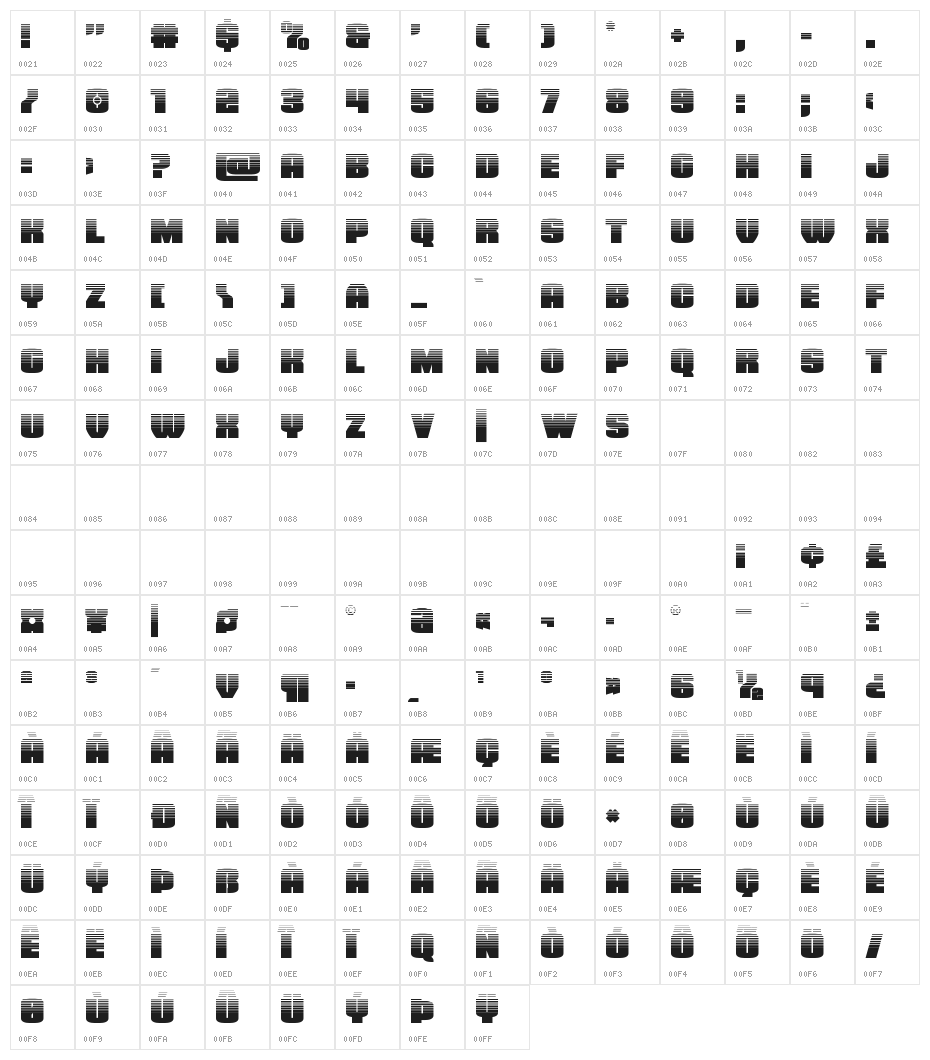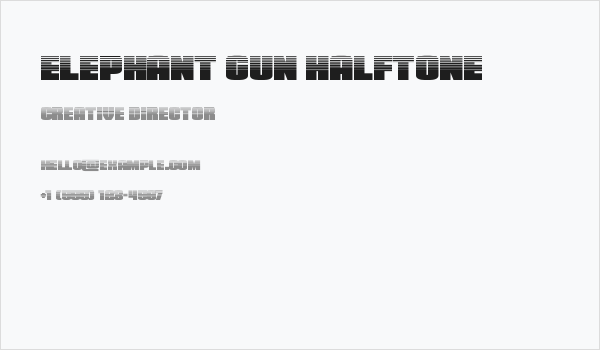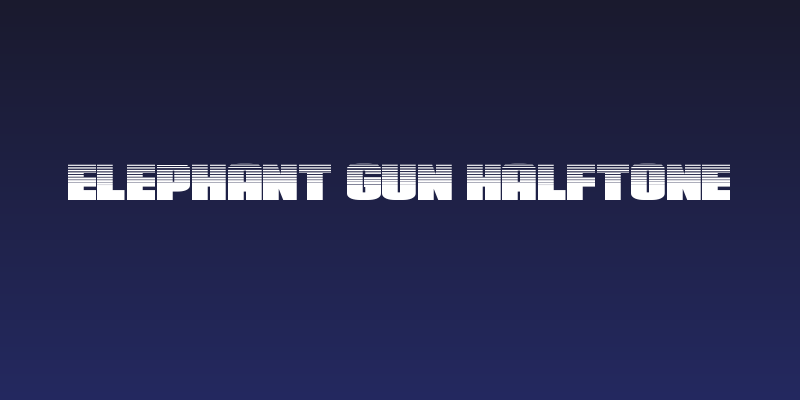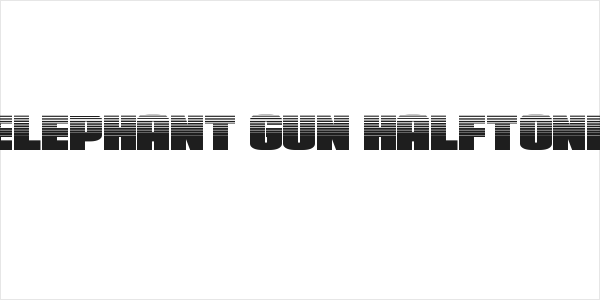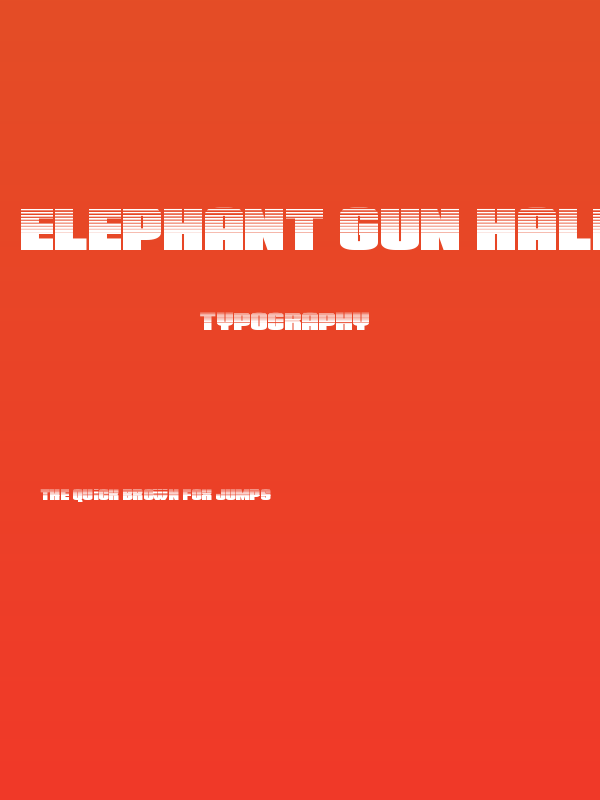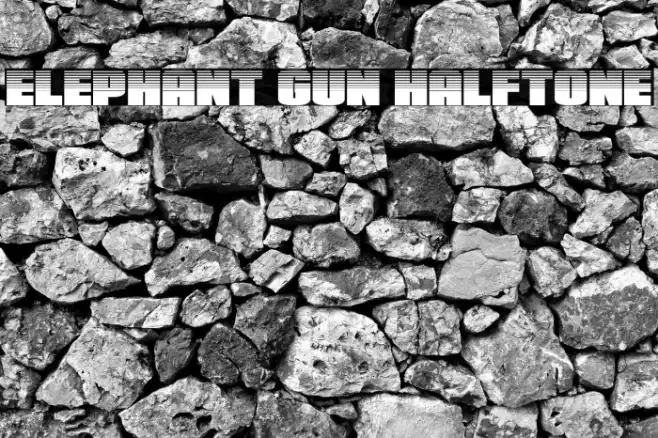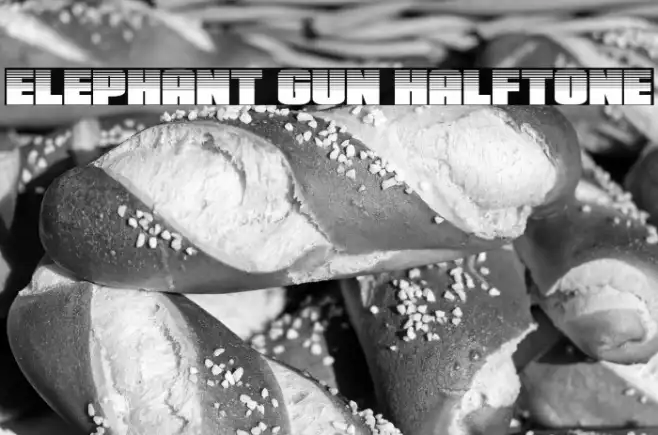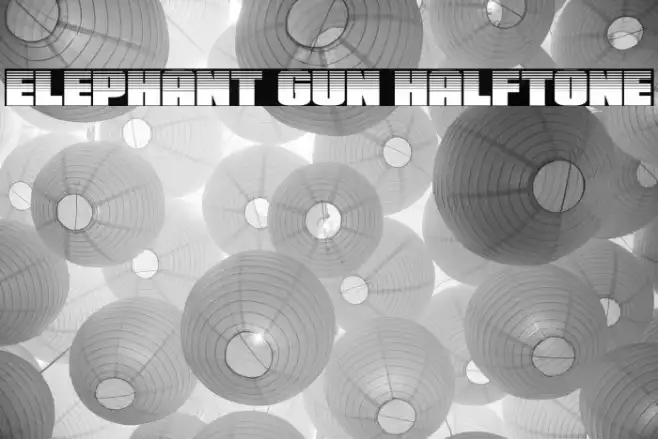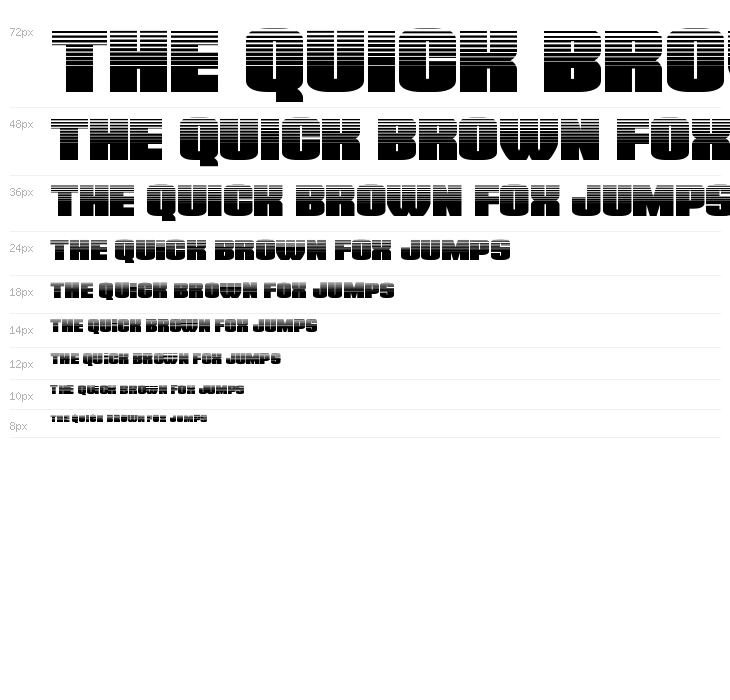
Elephant Gun Halftone Font
Elephant Gun Halftone Description
This font features a bold and striking design with a unique halftone effect that gives each character a layered, textured appearance. The uppercase letters are robust and wide, creating a strong visual impact. The design incorporates horizontal lines that create a sense of movement and depth, making it ideal for eye-catching headlines or titles. The numbers and special characters maintain the same boldness and halftone styling, ensuring consistency across all elements. This font's distinctive style is perfect for projects that require a modern and dynamic look.
| Proposed Projects | Ideal for posters, headlines, branding, and any project needing a bold, modern aesthetic. |